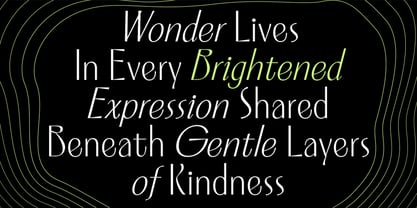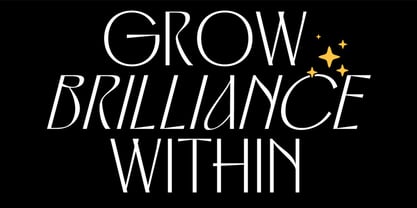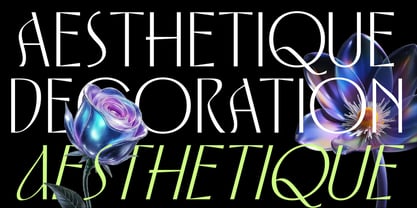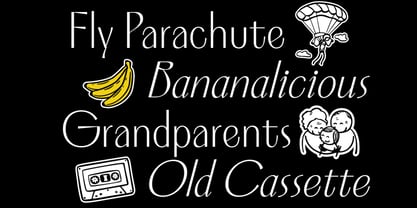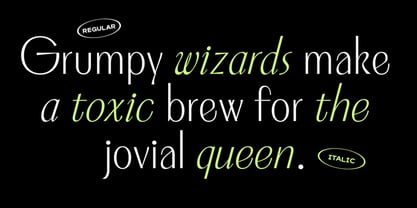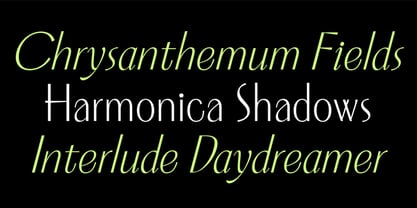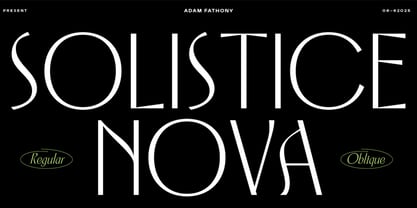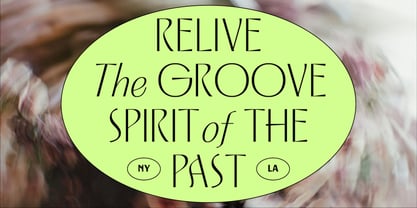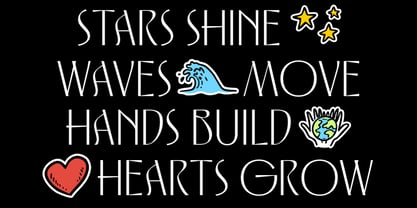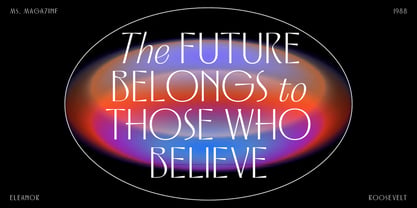
Solistice Nova
by Adam Fathony
The Solistice Nova Font Family was designed by Adam Fathoni Haris and published by Adam Fathony. Solistice Nova contains 2 styles and family package options. More about this family
Introducing Solstice Nova, a Duo font that includes both Regular and Oblique styles. This typeface is designed to inspire, blending refined elegance with expressive flair, making it an ideal choice for branding, creative projects, posters, and more. Solstice Nova supports multiple languages, ensuring versatility for designers around the globe. With its balanced geometry and distinctive personality, Solstice Nova adds a modern yet whimsical touch to any design, enhancing visual storytelling and engagement.
Designers: Adam Fathoni Haris
Foundry: Adam Fathony